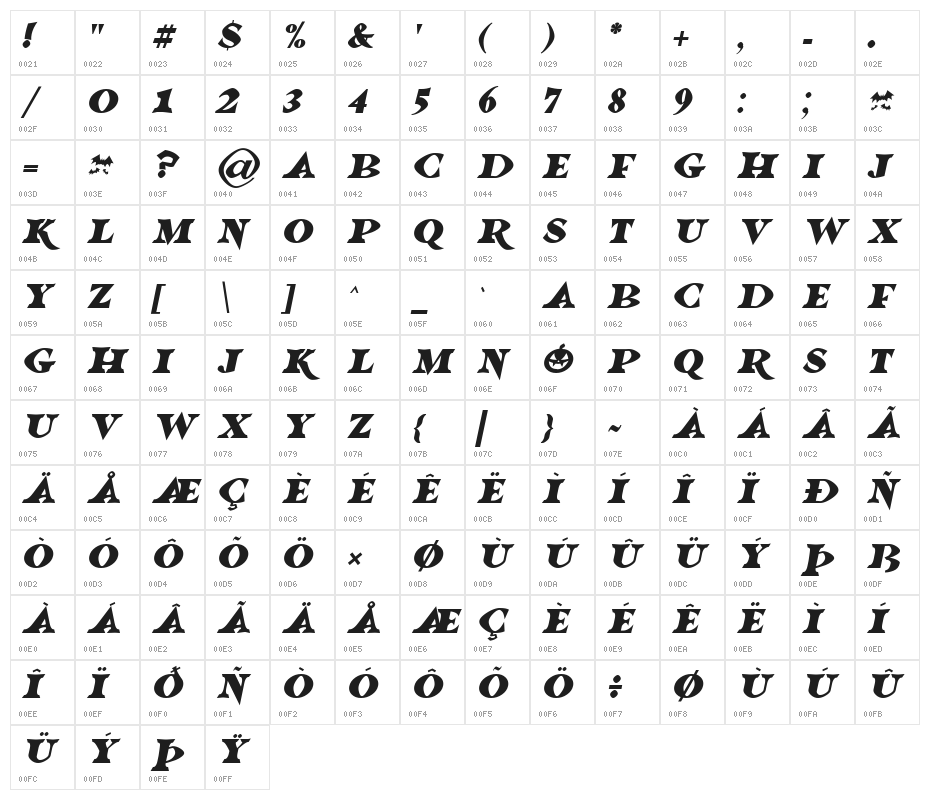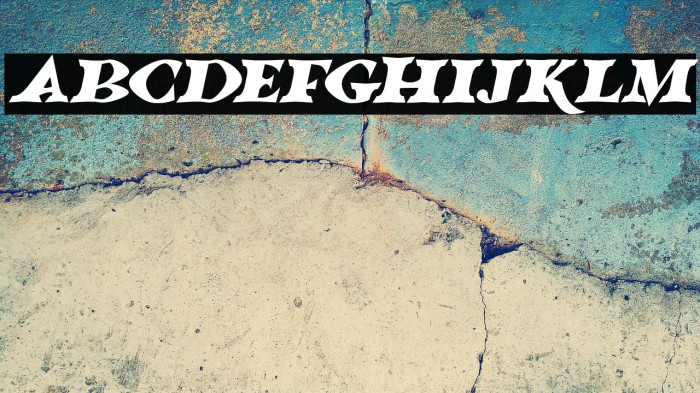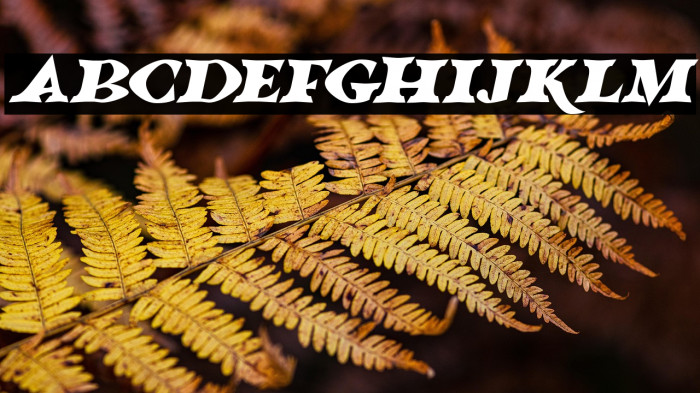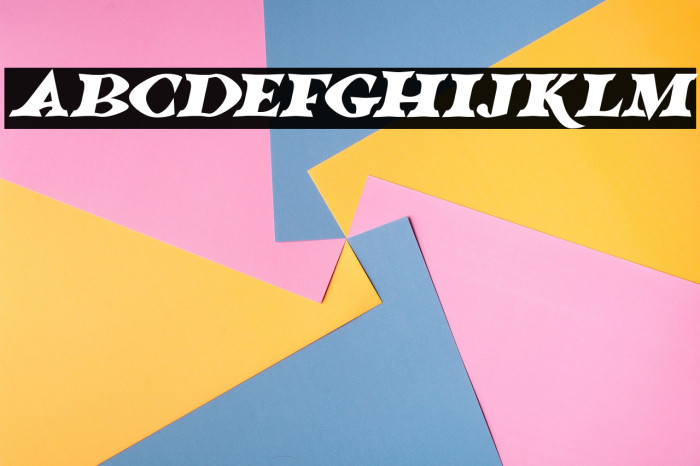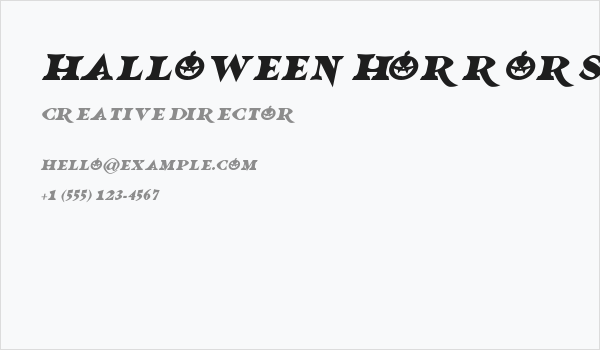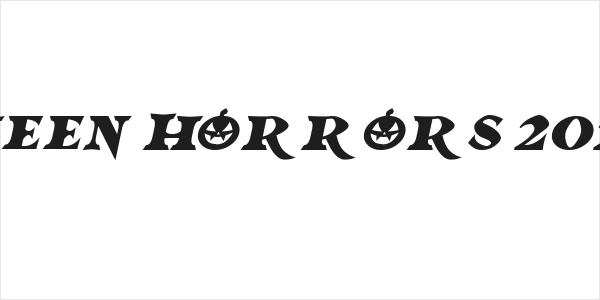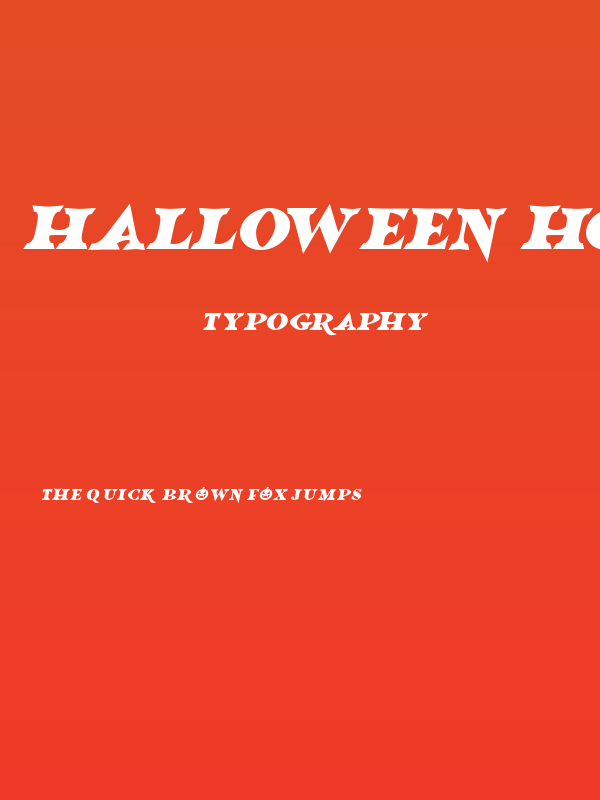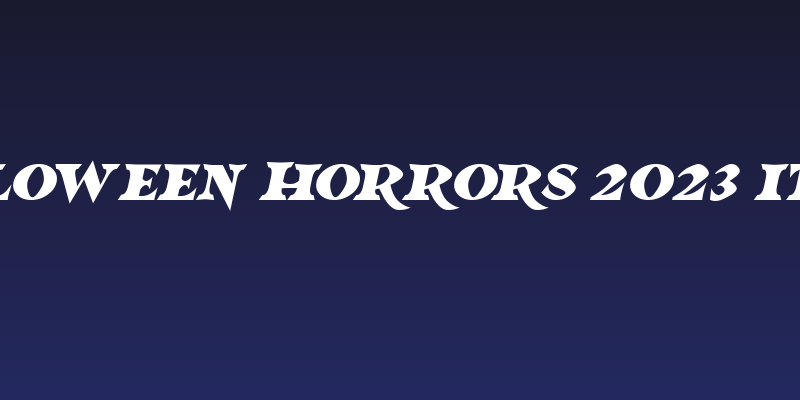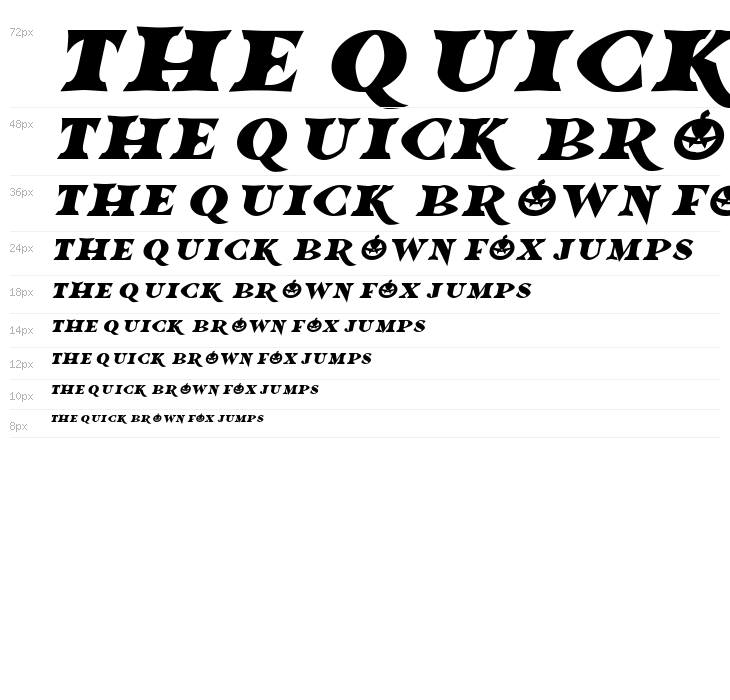
Halloween Horrors 2023 Italic Font
Halloween Horrors 2023 Italic Description
This font exudes a spooky and playful vibe, perfect for Halloween-themed projects. The letters are bold and italicized, with unique cut-out shapes and jagged edges that resemble classic horror motifs. The uppercase and lowercase letters maintain a consistent style, with some characters featuring additional decorative elements like a pumpkin face. The numbers and special characters follow the same eerie aesthetic, making the font cohesive and visually striking. Its bold and dramatic appearance makes it ideal for capturing attention and conveying a sense of mystery and excitement.
| Proposed Projects | Ideal for Halloween party invitations, horror movie posters, themed event flyers, and spooky merchandise branding. |